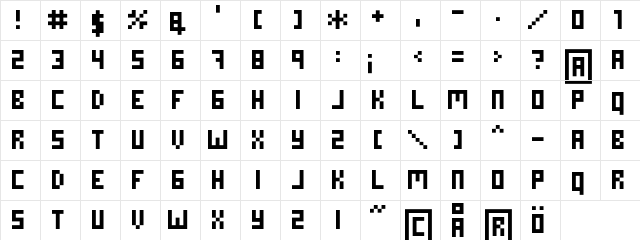
ROTORkeff Regular Free Font
ROTORkeff Regular
Design Context for ROTORkeff
ROTORkeff is a composed and adaptable typeface that performs quietly and consistently across a wide range of design contexts.